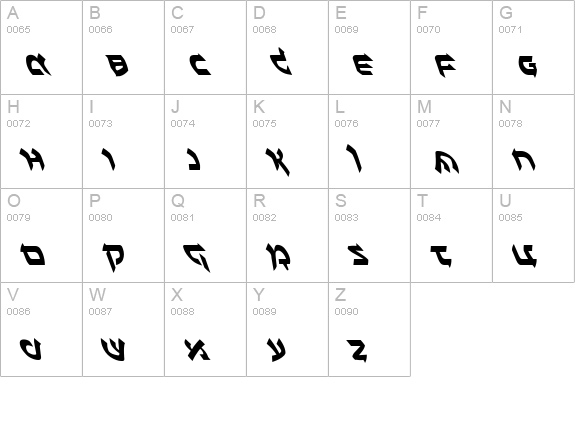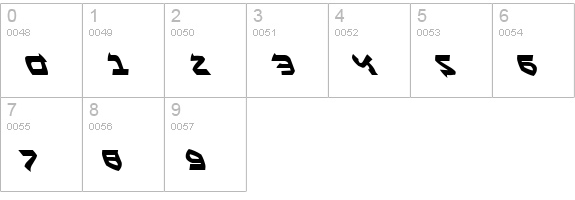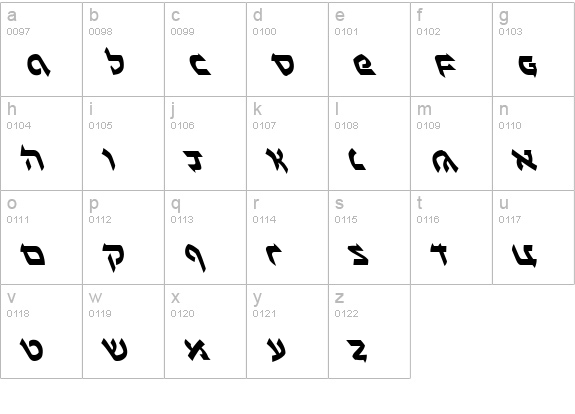
Ben-Zion Leftalic Font Details
Introducing the exquisite and elegant Ben-Zion Leftalic font, a sophisticated typeface that exudes charm and style. With its graceful curves and distinctive letterforms, Ben-Zion Leftalic is perfect for adding a touch of class to any design project. The flowing strokes and modern appeal of this font make it ideal for a variety of applications, from branding to editorial design. What sets Ben-Zion Leftalic apart is not only its striking aesthetics but also the fact that it is available for free download at FontsMarket.com. Yes, you read that right - this premium font can be yours without any cost. Simply visit FontsMarket.com and elevate your creative projects with the timeless beauty of Ben-Zion Leftalic. Whether you're designing a logo, creating invitations, or crafting a magazine layout, this versatile font will surely make a lasting impression. Download Ben-Zion Leftalic today and unleash your creativity with this exceptional typeface.